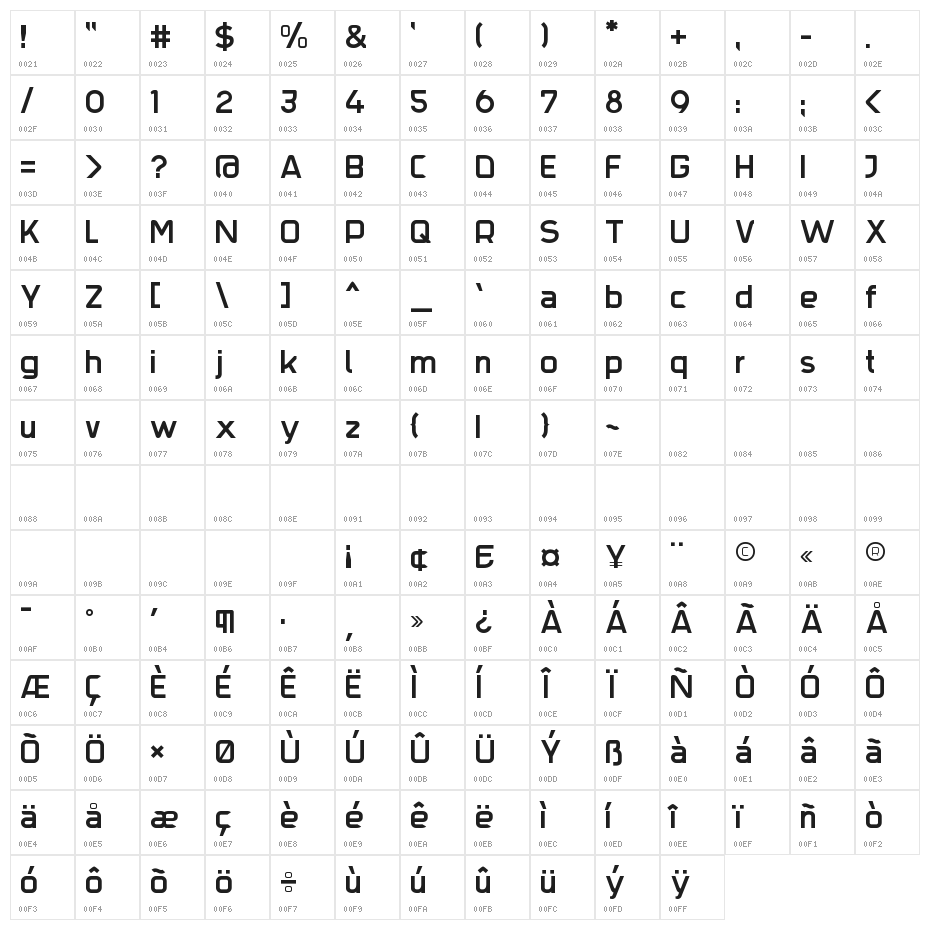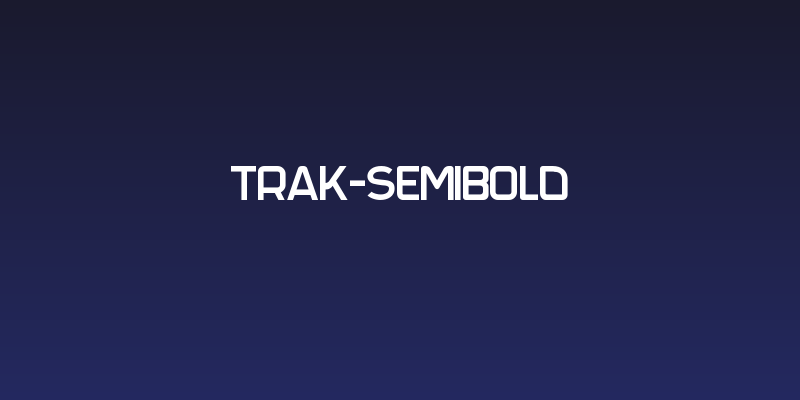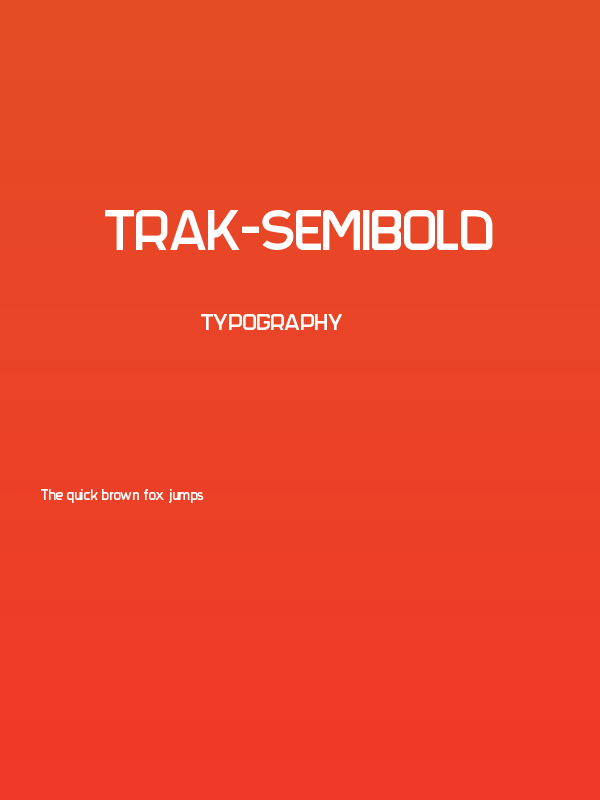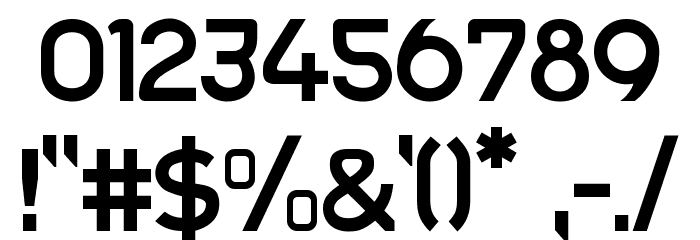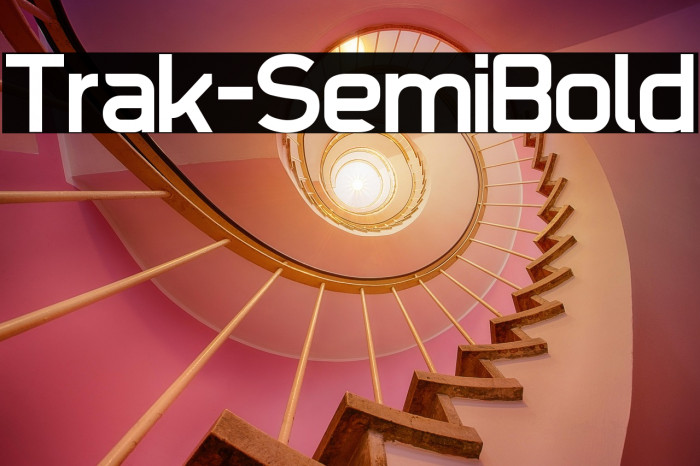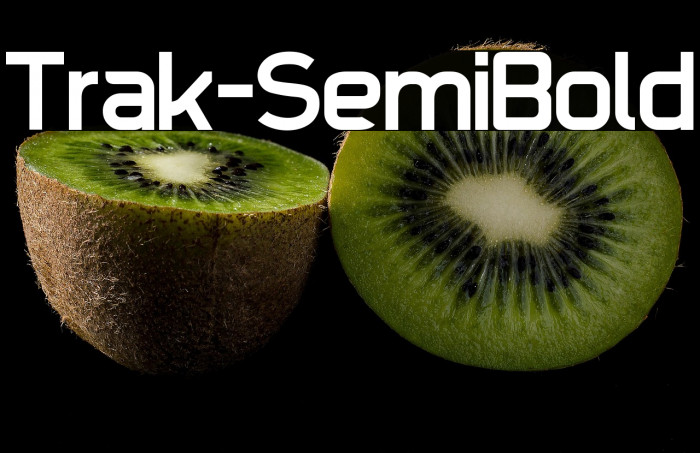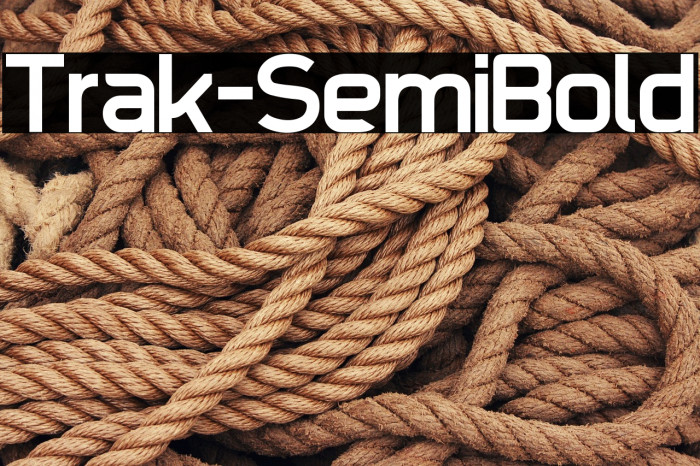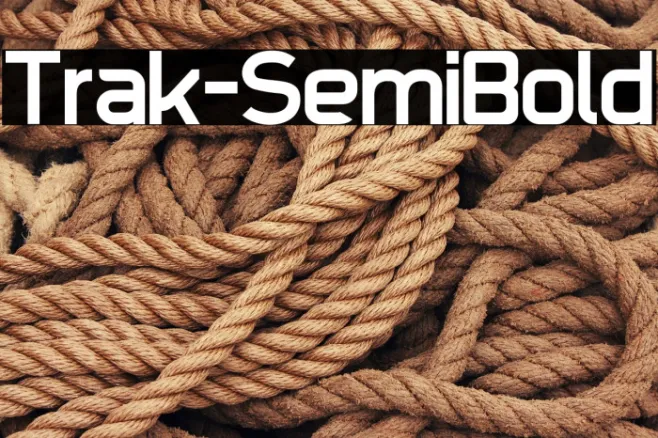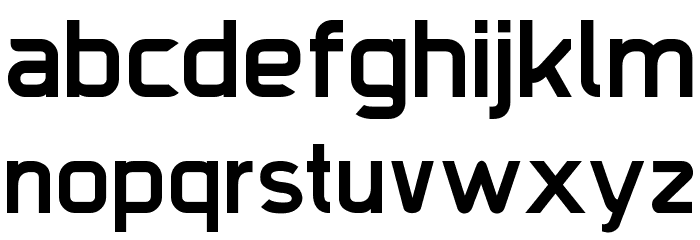
Trak-SemiBold Font
Trak-SemiBold Description
This font features a modern and clean design with a semi-bold weight, providing a strong and assertive appearance. The characters are crafted with a geometric precision, offering a uniform and balanced look. The uppercase letters are bold and commanding, while the lowercase letters maintain a consistent style that complements the overall design. Numbers and special characters are clear and easily distinguishable, making them suitable for various applications. The font's structure is sans-serif, contributing to its contemporary aesthetic. Its versatility makes it ideal for digital and print media, ensuring readability across different platforms.
| Use Case | Headlines, Logos, Digital Interfaces |
| Proposed Projects | Ideal for branding, advertising, digital interfaces, and editorial design. |